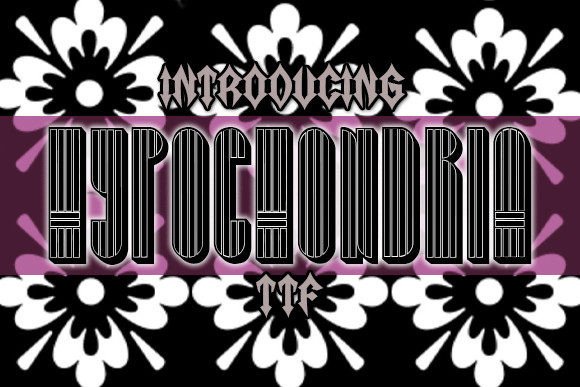
Unleash your creativity with Hypochondria, the striking retro typeface designed to make your designs pop! Step into a world of nostalgia with this blocky font that exudes character and charm. From bold posters to eye-catching flyers, Hypochondria is your go-to choice for creating designs that leave a lasting impression.
Dive into a realm of versatility with Hypochondria. Whether you're crafting digital masterpieces or leaving your mark on the printed world, this font seamlessly adapts to your every need. Its strong presence commands attention in headlines, while its playful nature adds a touch of whimsy to body text. Let Hypochondria be your creative companion, guiding you towards designs that speak volumes.
Transport yourself to the era of vintage charm with Hypochondria. Its retro aesthetics evoke a sense of nostalgia, injecting a timeless appeal into your designs. Embrace the beauty of imperfection as Hypochondria's blocky edges and rough textures create a unique, handcrafted feel. Let your designs tell a story, capturing the essence of yesteryears with a modern twist.
With Hypochondria, you'll never run out of creative possibilities. Its extensive character set, including multilingual support, opens up a world of design opportunities. Craft designs that resonate with a global audience, breaking language barriers and connecting with people from all corners of the world. Let Hypochondria be your passport to a world of boundless creativity.
Join the creative revolution with Hypochondria, the font that ignites imagination and fuels your passion for design. Its user-friendly format ensures seamless integration into your design software, making the creative process effortless. Experience the joy of creating designs that captivate and inspire, leaving an unforgettable mark on your audience.